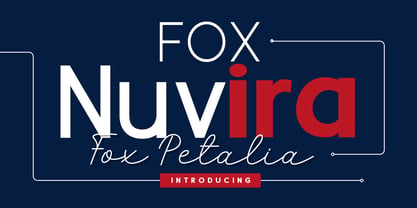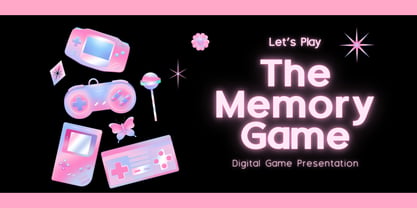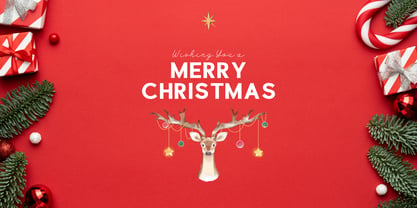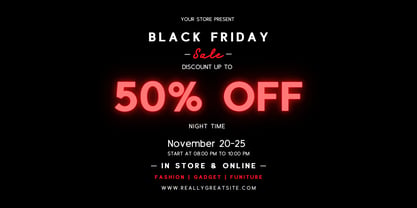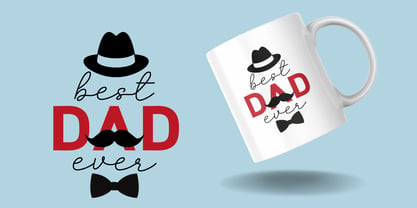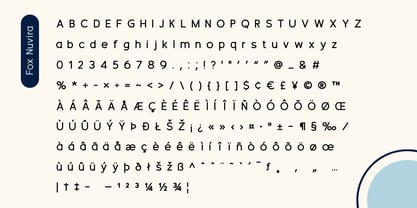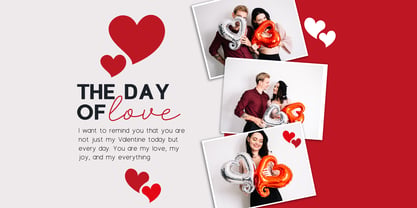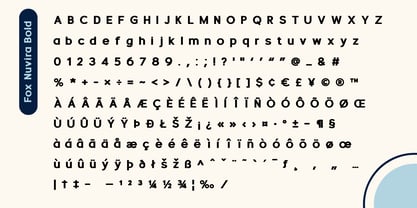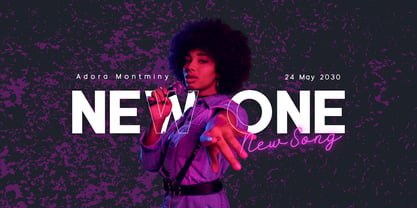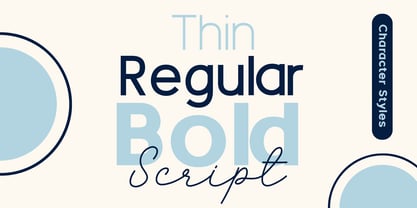
Fox Nuvira
The Fox Nuvira Font Family was designed by Rattana Rattanawan and published by Fox7. Fox Nuvira contains 4 styles and family package options. More about this family
Fox Nuvira & Fox Petalia – Modern Sans Serif & Handwritten Script Font Duo Fox Nuvira is a clean and modern sans serif font family that comes in 3 styles: Thin, Regular, and Bold. Perfect for branding, logos, magazines, social media, and web design, Fox Nuvira brings a professional and versatile look to any project.
Fox Petalia is a stylish handwritten script font with elegant curves and natural flow. It’s great for wedding invitations, quotes, product packaging, and romantic designs.
This font duo is ideal for modern design projects that need both structure and elegance. Use them together or separately for a timeless, creative feel.